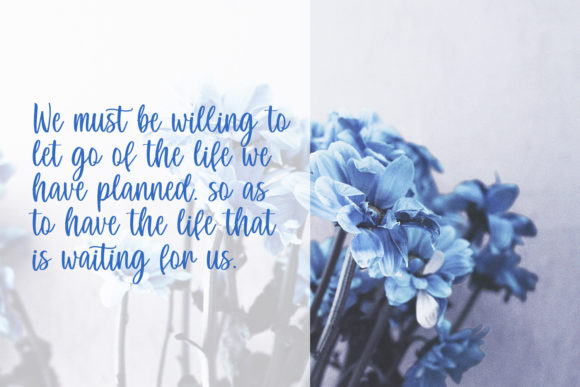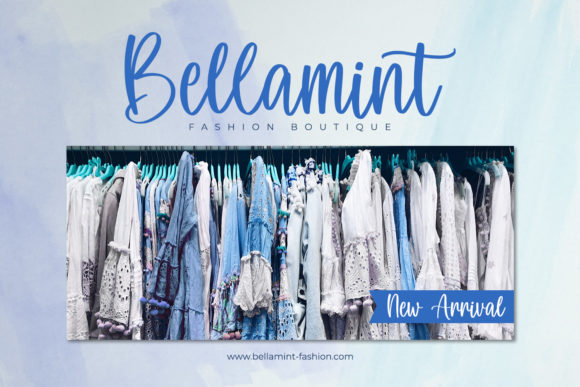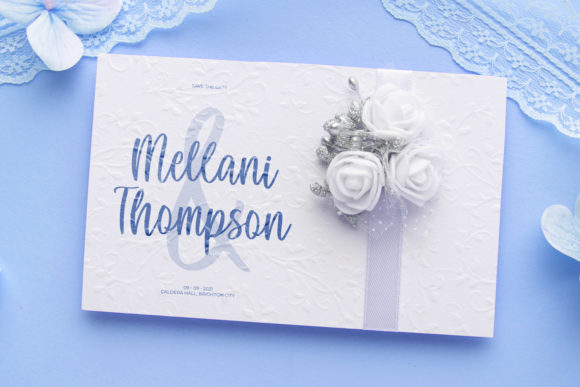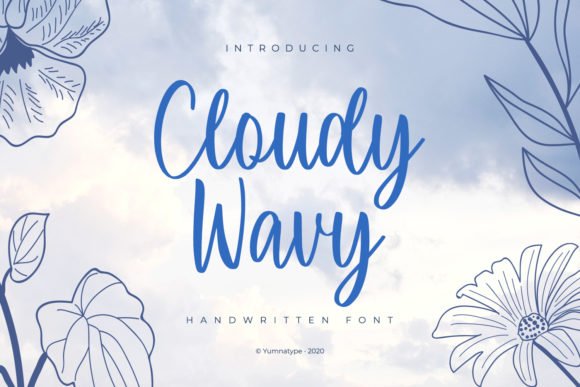
Introduction to Cloudy Wavy Font
Cloudy Wavy is a beautiful handwritten font.
👤 Author Yumna_Type
Not too thin and not too thick, balanced and varied, Cloudy Wavy was designed to enhance the beauty of your projects .
Cloudy Wavy Font offers exceptional quality and versatility, making it a valuable addition to your design toolkit. Whether you’re creating for personal projects or commercial use, Cloudy Wavy Font delivers professional results.